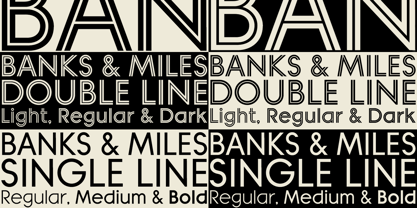
Banks and Miles
by K-Type
Banks and Miles Font Family was designed by Keith Bates and published by K-Type. Banks and Miles contains 9 styles family package options.
K-Type’s ‘Banks & Miles’ fonts are inspired by the geometric monoline lettering created for the British Post Office in 1970 by London design company Banks & Miles, a project initiated and supervised by partner John Miles, and which included ‘Double Line’ and ‘Single Line’ alphabets. The new digital typeface is a reworking and extension of both alphabets. Banks & Miles Double Line is provided in three weights – Light, Regular and Dark – variations achieved by adjusting the width of the inline. Banks & Miles Single Line develops the less used companion sans into a three weight family – Regular, Medium and Bold – each with an optically corrected oblique. Although the ‘Banks & Miles Double Line’ and ‘Banks & Miles Single Line’ fonts are based on the original Post Office letterforms, glyphs have been drawn from scratch and include numerous adjustments and impertinent alterations, such as narrowing the overly wide Z and shortening the leg of the K. Several disparities exist between the Post Office Double and Single Line styles, and K-Type has attempted to secure greater consistency between the two. For instance, a wide apex on the Double Line’s lowercase w is made pointed to match the uppercase W and the Single Line’s W/w. Also, the gently sloping hook of Single Line’s lowercase j is adopted for both families. The original Single Line’s R and k, which were incongruously simplified, are drawn in their more remarkable Double Line forms, and whilst the new Single Line fonts are modestly condensed where appropriate, rounded letters retain the essentially circular form of the Double Line. Many characters that were not part of the original project, such as @, ß, #, and currency symbols, have been designed afresh, and a full set of Latin Extended-A characters is included. The new fonts are a celebration of distinctive features like the delightful teardrop-shaped bowl of a,b,d,g,p and q, and a general level of elegance not always achieved by inline typefaces. The Post Office Double Line alphabet was used from the early 1970s, in different colours to denote the various parts of the Post Office business which included telecommunications, counter services and the Royal Mail. Even after the Post Office was split into separate businesses in the 1980s, Post Office Counters and Royal Mail continued use of the lettering, and a version can still be seen within the Royal Mail cruciform logo.
Designers: Keith Bates
Publisher: K-Type
Foundry: K-Type
Design Owner: K-Type